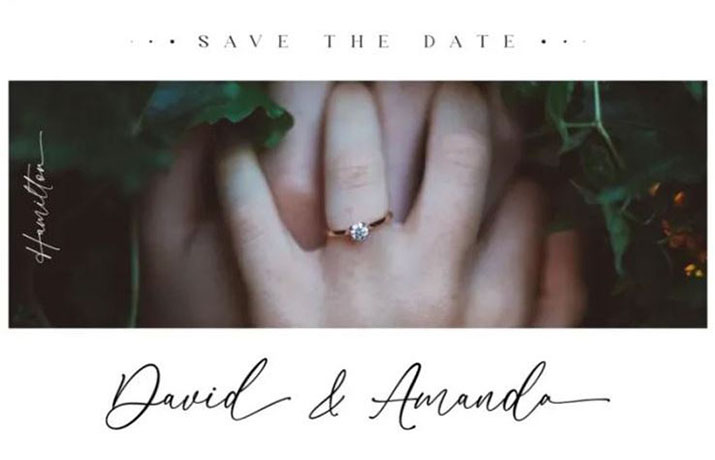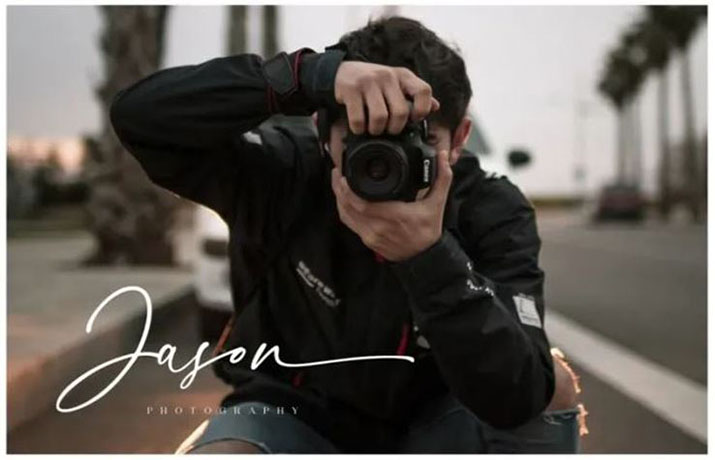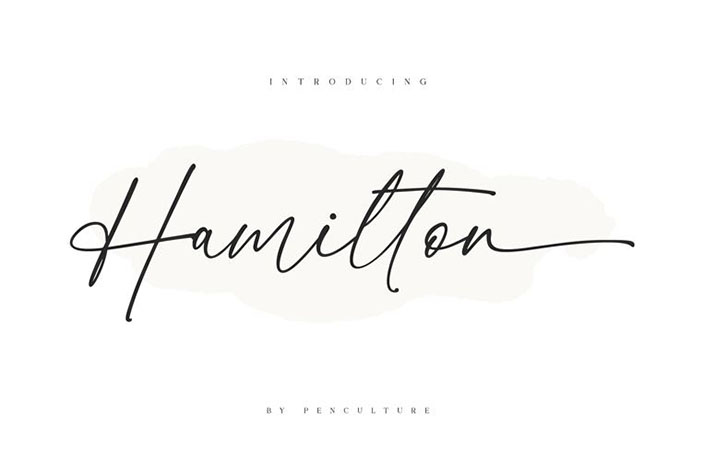
Hamilton Font is a romantic signature script typeface that has curves and slender lines. It was designed and published by Pen Culture.
This font can take your every creative idea to the highest level! Hamilton has a very beautiful stroke and unique swashes. It is inspired by the signatures, that’s why it maintains a natural flow deeply.
Its classy calligraphy style makes it a suitable choice if applied to wedding projects, invitations, branding, quotes, Instagram posts, social media posters, signs, magazines, fashion, and much more.
| Style: | Script, Handwritten, Typeface |
- All of your design project needs, including branding, invitations, birthday cards, wedding cards, signatures, covers, posters, social media posts, product designs, product packaging, shopping bags, cards, brochures, signs, mug printing, Instagram quotes, and wherever else you desire, can be satisfied by it.
This font supports 65 languages.